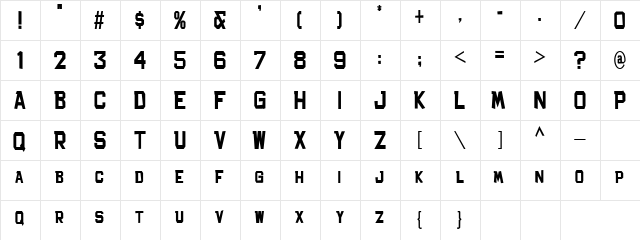
Bachelor Pad Condensed JL Regular
| Foundry | Jeff's Fonts & Dingbats |
| Designer | Jeffrey N. Levine |
Design Context for Bachelor Pad Condensed JL Typeface
Bachelor Pad Condensed JL offers clean, dependable letterforms without strong stylistic allegiance, making it a practical choice for designers who need flexibility. The condensed width makes it efficient for tight spaces without sacrificing legibility.